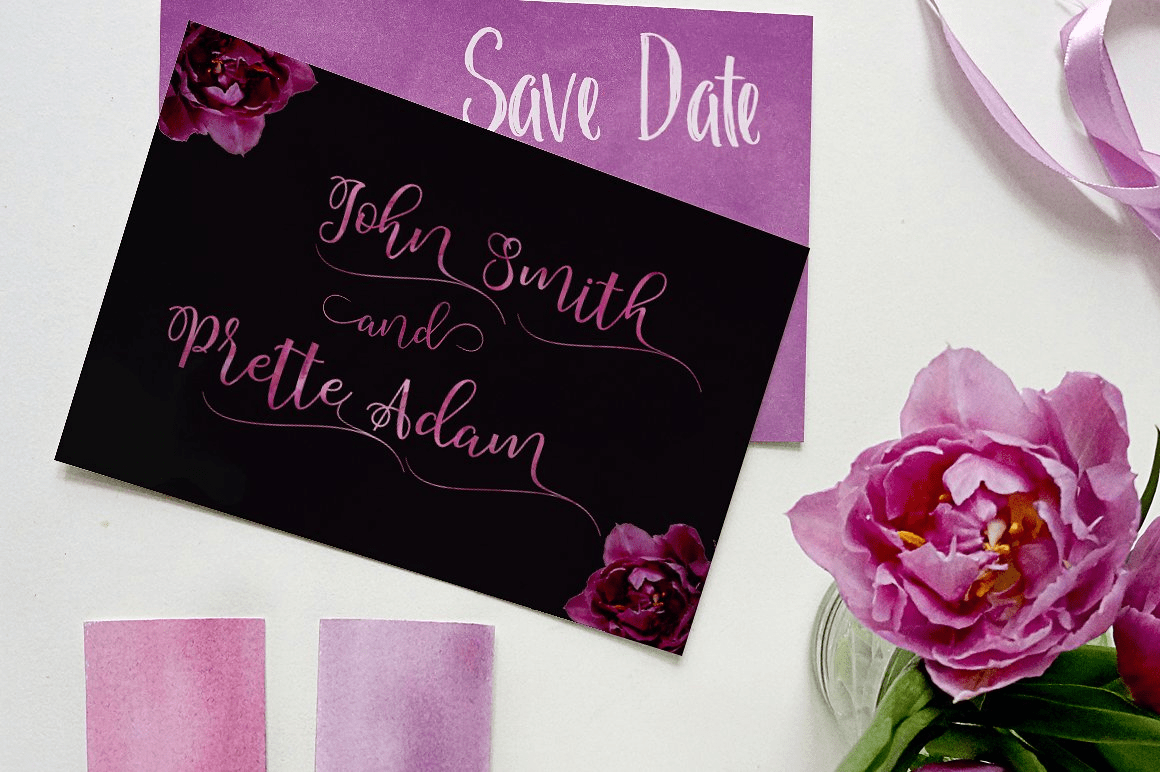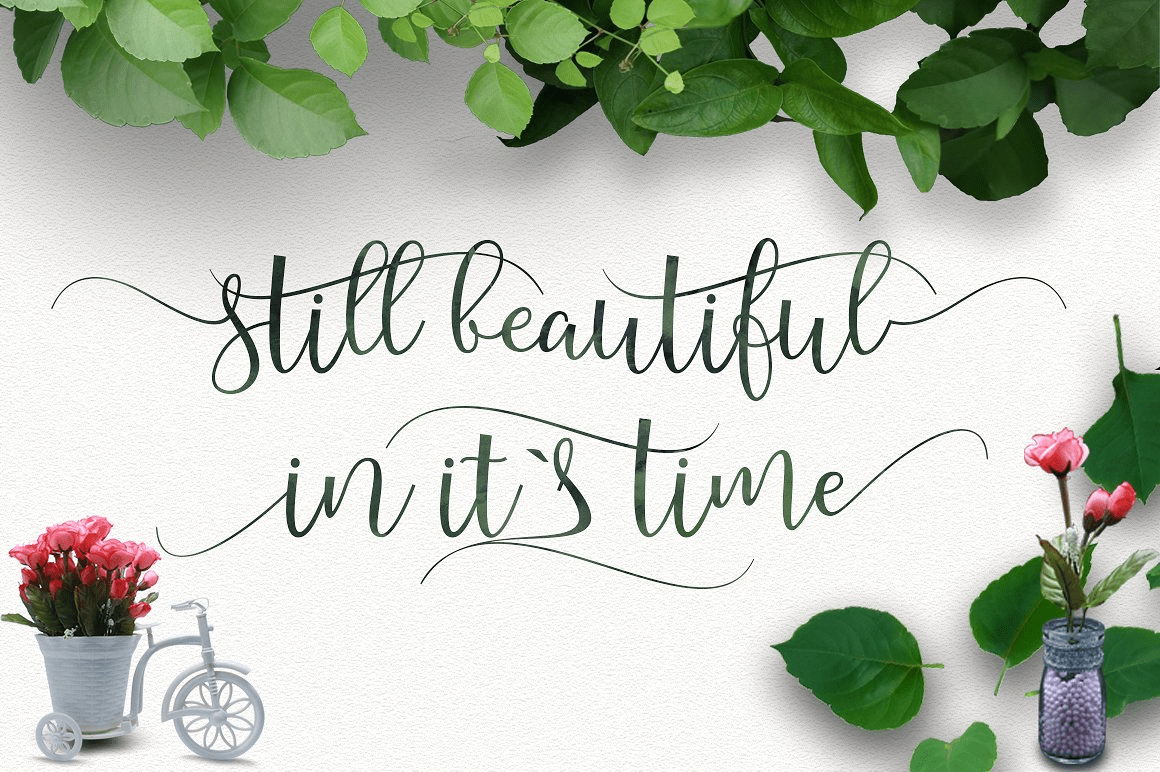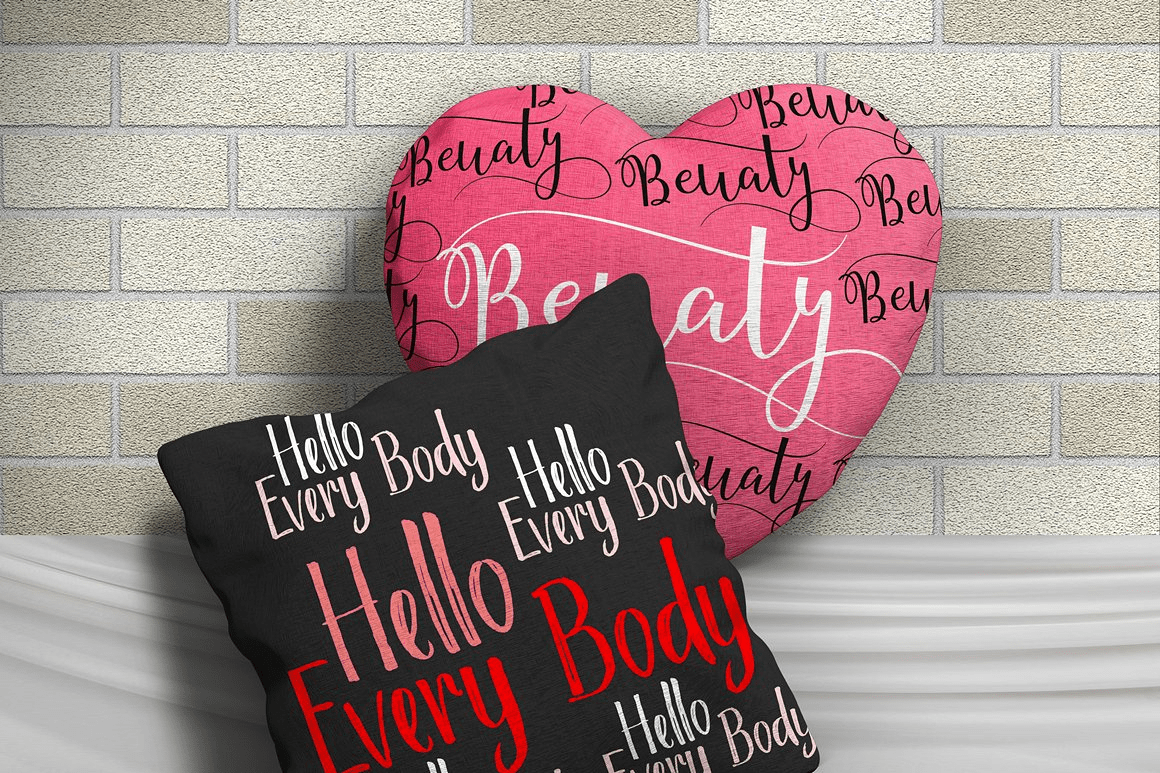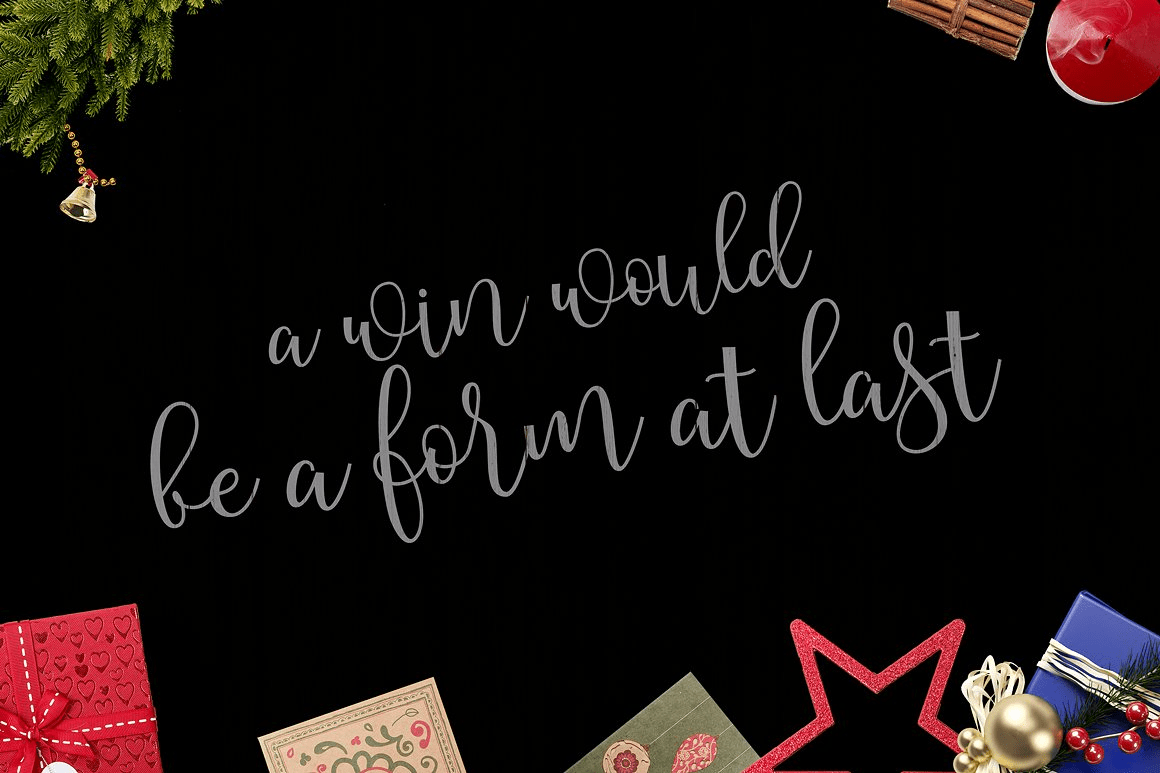
Font Duo (beetle and rantes)
Font Family by Groen
Buy NowFont Duo (beetle and rantes) is a font that made the hand by having the character up and down like a dancer. Freestyle has a very unique style of calligraphy, it is very suitable for use in the work of modern design.
The Features of this fonts is:
- Standart ligatures
- Stylistic Alternates
- Stylistic sets
- PUA Unicode (Private Use Areas)
Can be used for various purposes.such as headings, logos, wedding invitation, t-shirt, letterhead, lable, news, posters, badges etc. To enable the OpenType Stylistic alternates, you need a program that supports OpenType features such as Adobe Illustrator CS, Adobe Indesign & CorelDraw X6-X7.a font that made the hand by having the character up and down like a dancer. Freestyle has a very unique style of calligraphy, it is very suitable for use in the work of modern design.